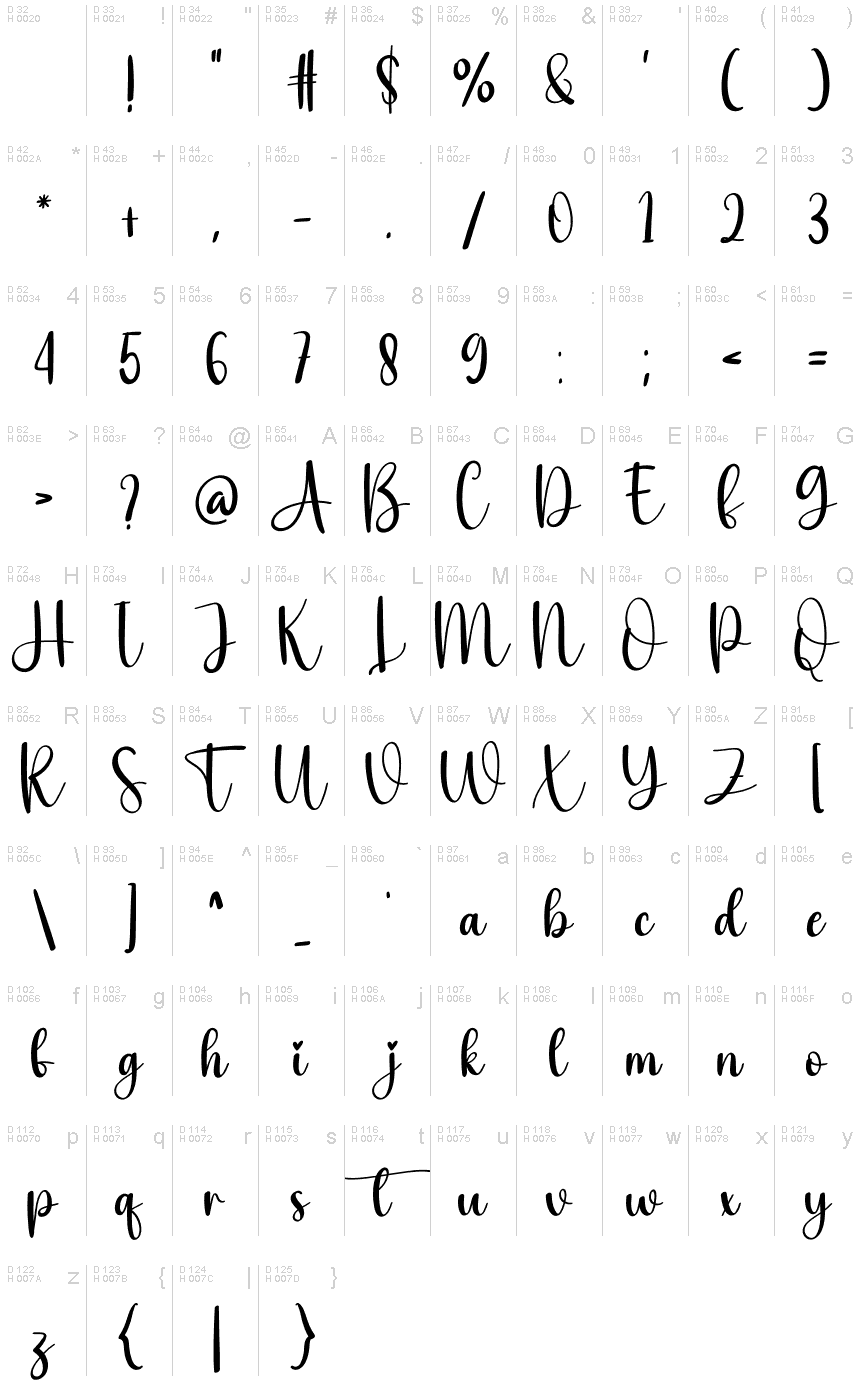
Baby Chubby
Baby Chubby, a creation by Scratchones, is a delightful and charming font that exudes elegance and playfulness. Its quality calligraphy style adds a touch of sophistication to any project. With its semi-light weight, Baby Chubby effortlessly catches the eye while maintaining an airy grace.
The semi-condensed width lends itself perfectly to designs that require a compact yet legible font. Ideal for wedding invitations, children's books, or even logo designs seeking a touch of whimsy, Baby Chubby is sure to bring warmth and character to your creative endeavors.